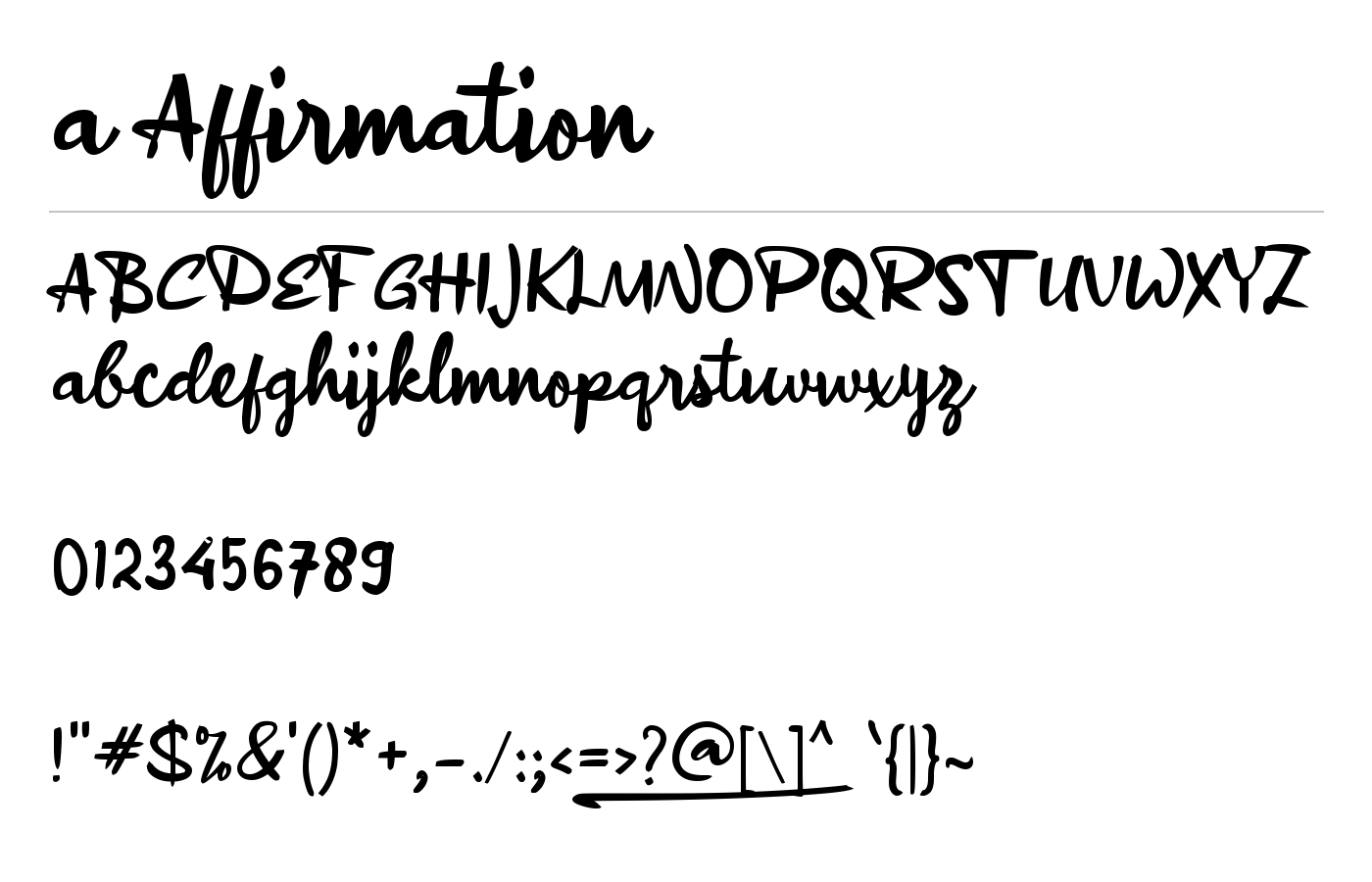
Affirmation Font is a lively and casual script with a handwritten feel, featuring smooth, moderately thick strokes and a slightly condensed, upright style. Its characters display playful loops and varying stroke widths, creating a warm and approachable vibe perfect for informal, creative, or personal projects. This font works well for branding, invitations, and social media where a friendly and expressive touch is desired.
a Affirmation Font
About a Affirmation Font